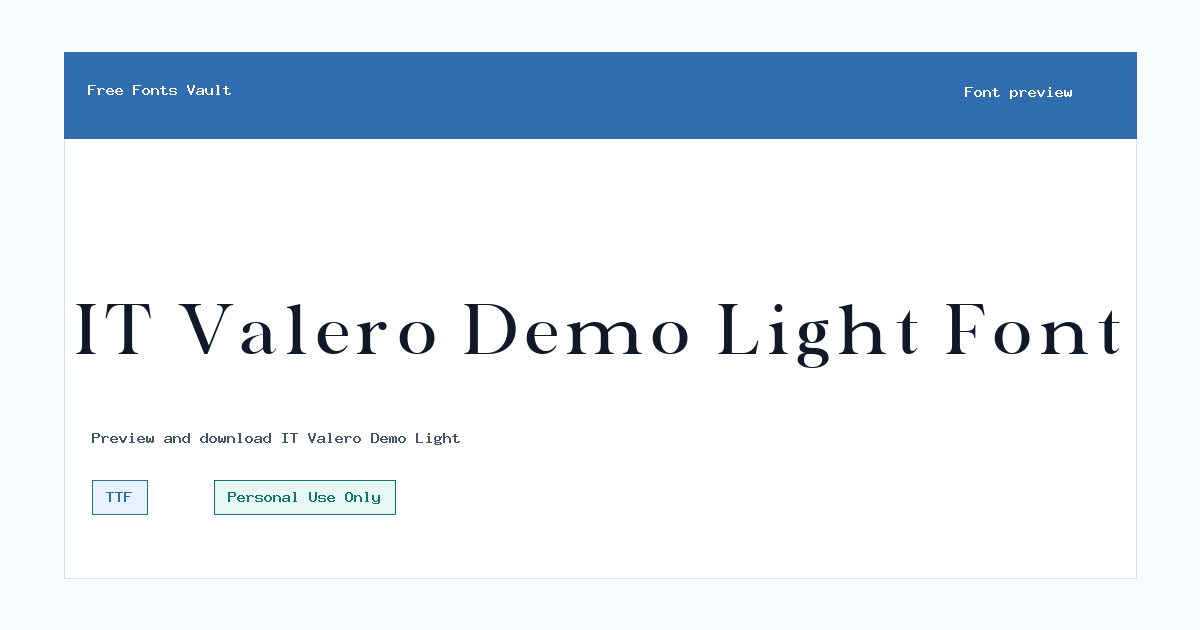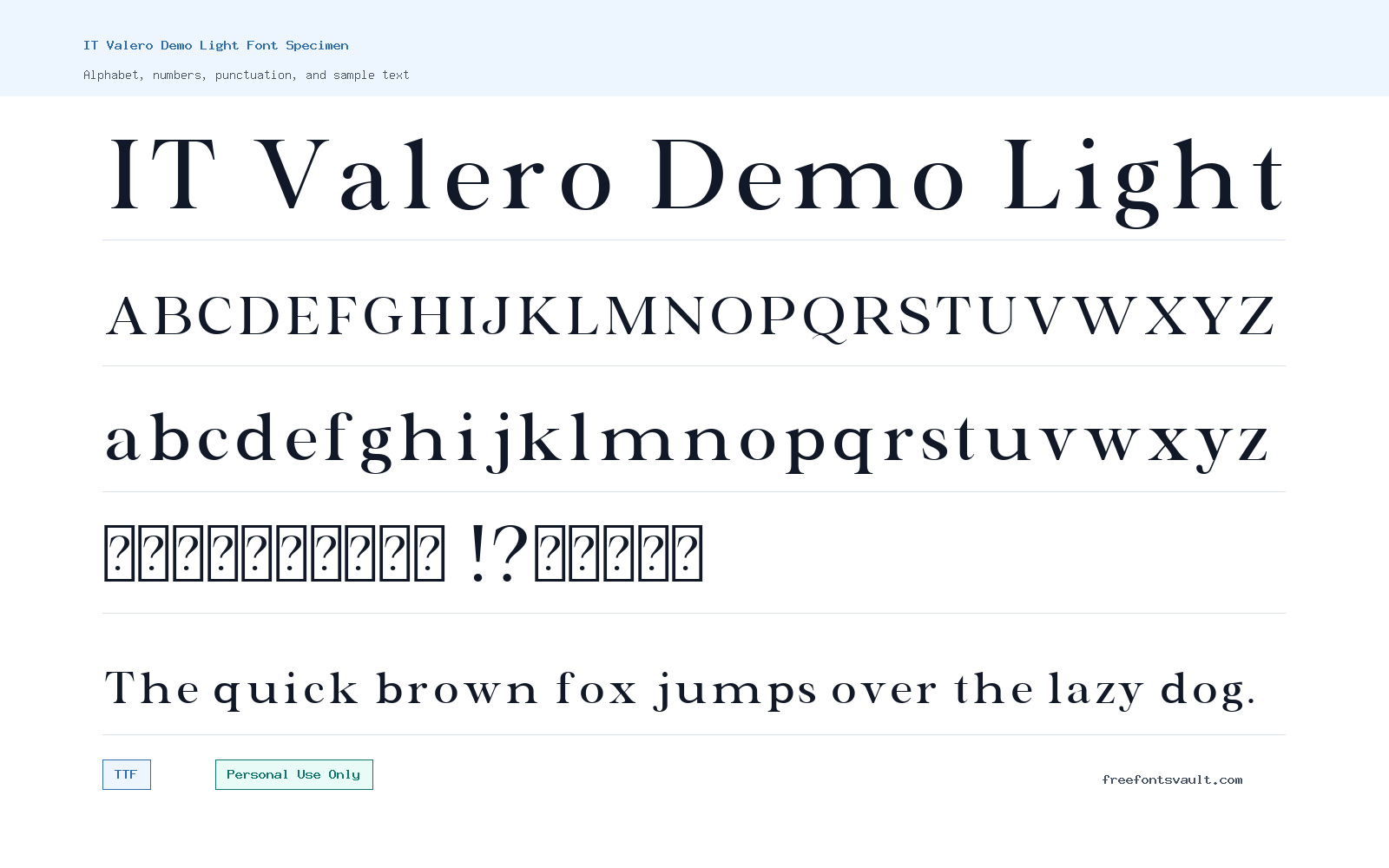
IT Valero Demo Light
IT Valero Demo Light font preview showing the family name
IT Valero Demo Light Font
IT Valero Demo Light font specimen showing alphabet, numbers, and sample text
• Designer Indotype
• Foundry Indotype Foundry
IT Valero Demo Light font.
IT Valero Demo Light is a light-weight TTF font from Indotype, suited for designers who want a refined look for personal projects, previews, and early design drafts.
About IT Valero Demo Light
IT Valero Demo Light is listed as a demo light style from the IT Valero Serif Font Family. The file uses a normal style with a 300 weight, so it is best approached as a lighter display or text option rather than a heavy headline face. A light font can give titles, names, and short lines a calmer feel, but it also needs enough size and contrast to stay readable. If you are testing it in the preview box, start with a few real words from your project rather than a random alphabet sample. Try a brand name, a poster title, a menu heading, or a short quote. That will show you how the spacing, letter shapes, and thin strokes behave in the kind of text you actually plan to use.
For logo sketches, IT Valero Demo Light may work best when the wordmark is simple and the letters have room to breathe. Avoid squeezing it into very tight layouts until you have checked the spacing carefully. In posters and social graphics, use it for large headings, elegant title lines, or quiet editorial-style text. For web mockups, test it at desktop and mobile sizes before committing to a layout. Light weights can look polished on large screens but may become faint on small screens, low-resolution previews, or busy backgrounds. Pair it with a plain sans serif for body copy if you want the font to carry the title while the supporting text stays easy to read.
• Connected to the IT Valero Serif Font Family name, with the demo cut focused on a lighter visual weight.
• Best tested at larger sizes where thin strokes and spacing can be seen clearly.
• Personal logo drafts and wordmark experiments
• Poster titles, invitations, and display headings
• Editorial-style web mockups and landing page hero text
• Portfolio graphics, moodboards, and brand direction tests
• Short quotes, name treatments, and refined title lines
IT Valero Demo Light is credited to Indotype, with Indotype Foundry listed as the foundry.
Use the preview tool with real project text before downloading. Because this is a light-weight font, test it on both light and dark backgrounds and avoid using it for long paragraphs. It should be most comfortable in short settings where the letters have enough size and spacing. If you pair it with another font, choose a simple sans serif or a neutral text face so the lighter title style does not compete with busy body copy.
What weight is IT Valero Demo Light?
It is listed with a 300 font weight, which is a light weight.
Is this a good font for body text?
Use caution. A light 300 weight can become hard to read in long paragraphs or small sizes. It is safer for headings, short titles, names, and display text.
Who designed IT Valero Demo Light?
The designer is listed as Indotype, and the foundry is listed as Indotype Foundry.